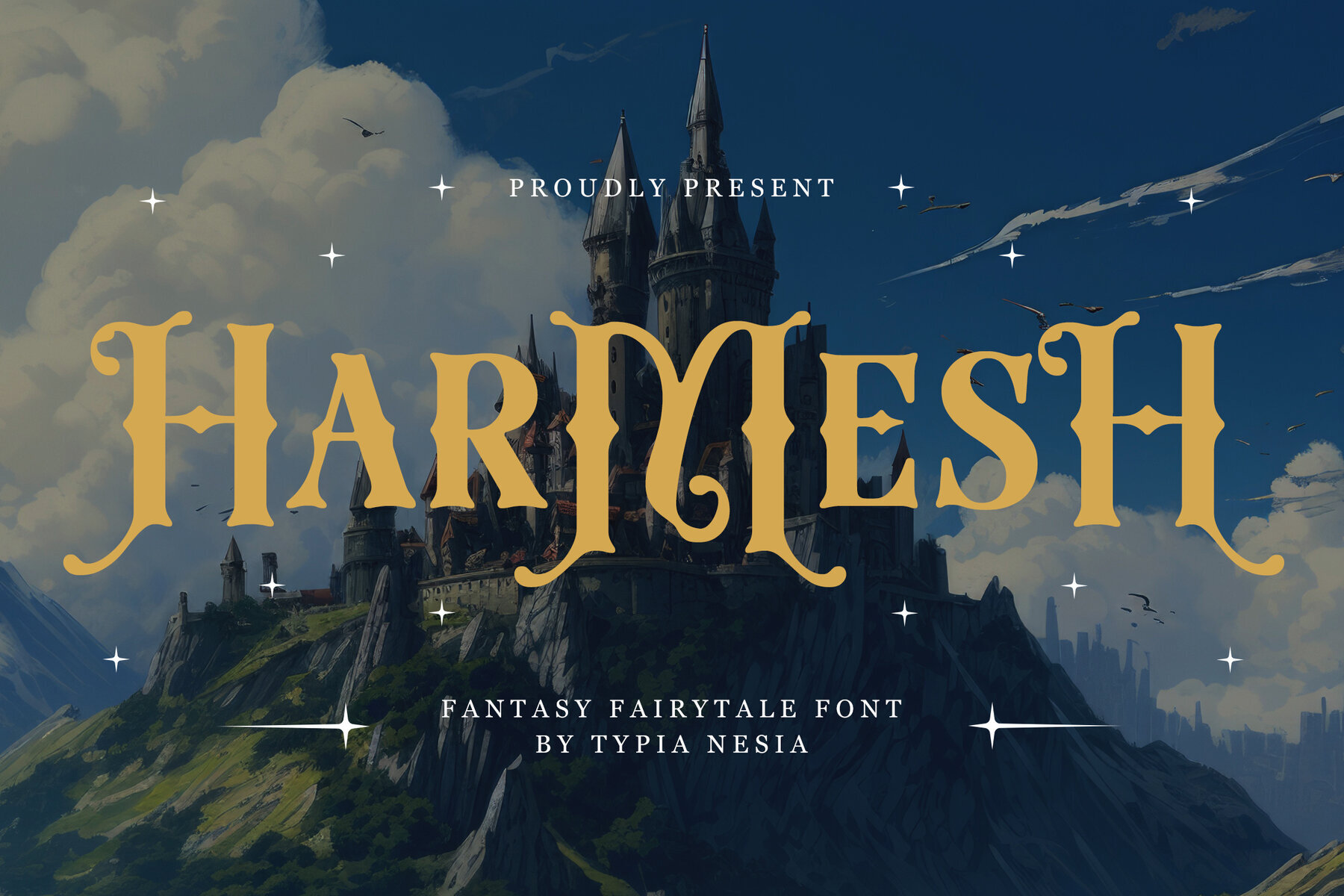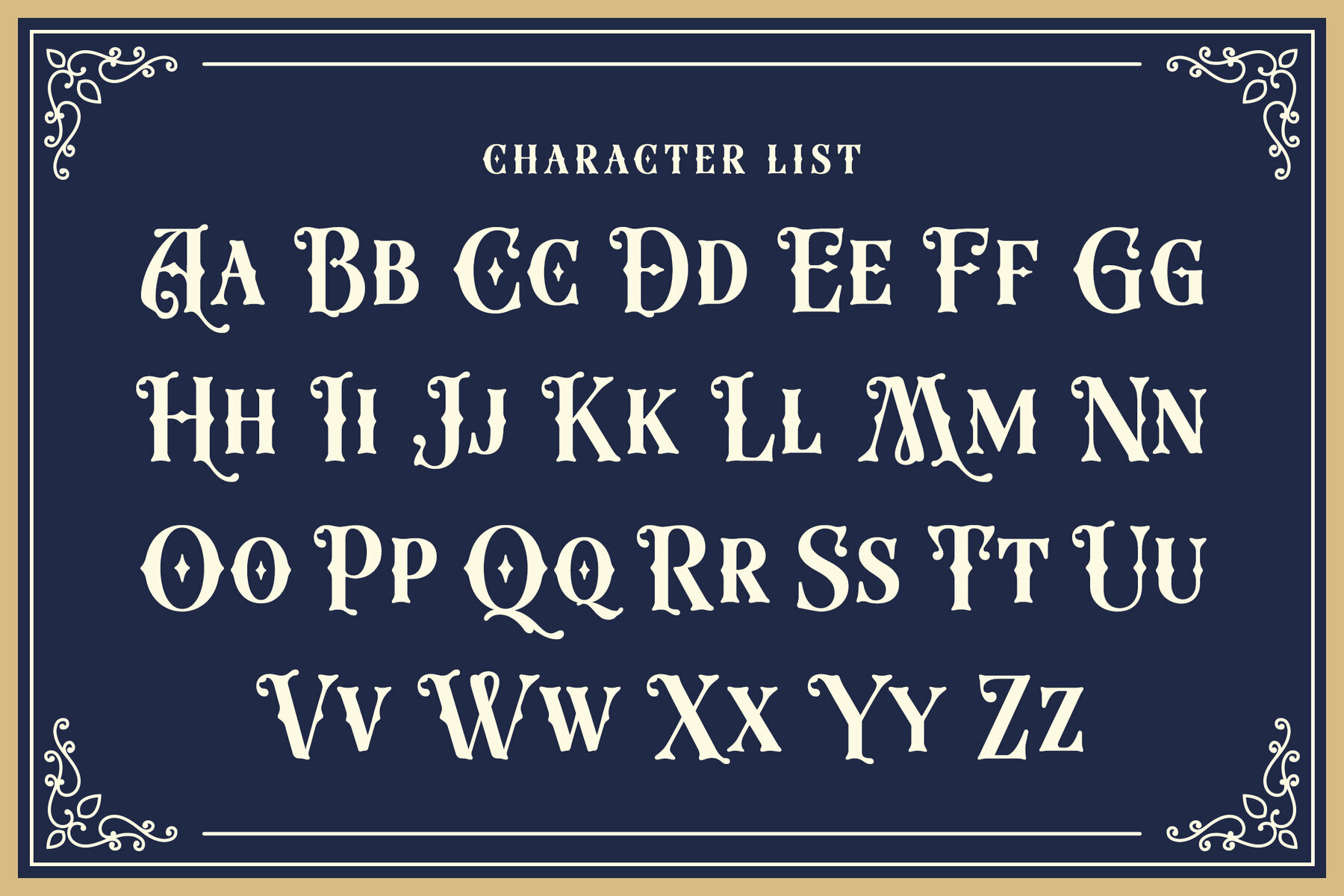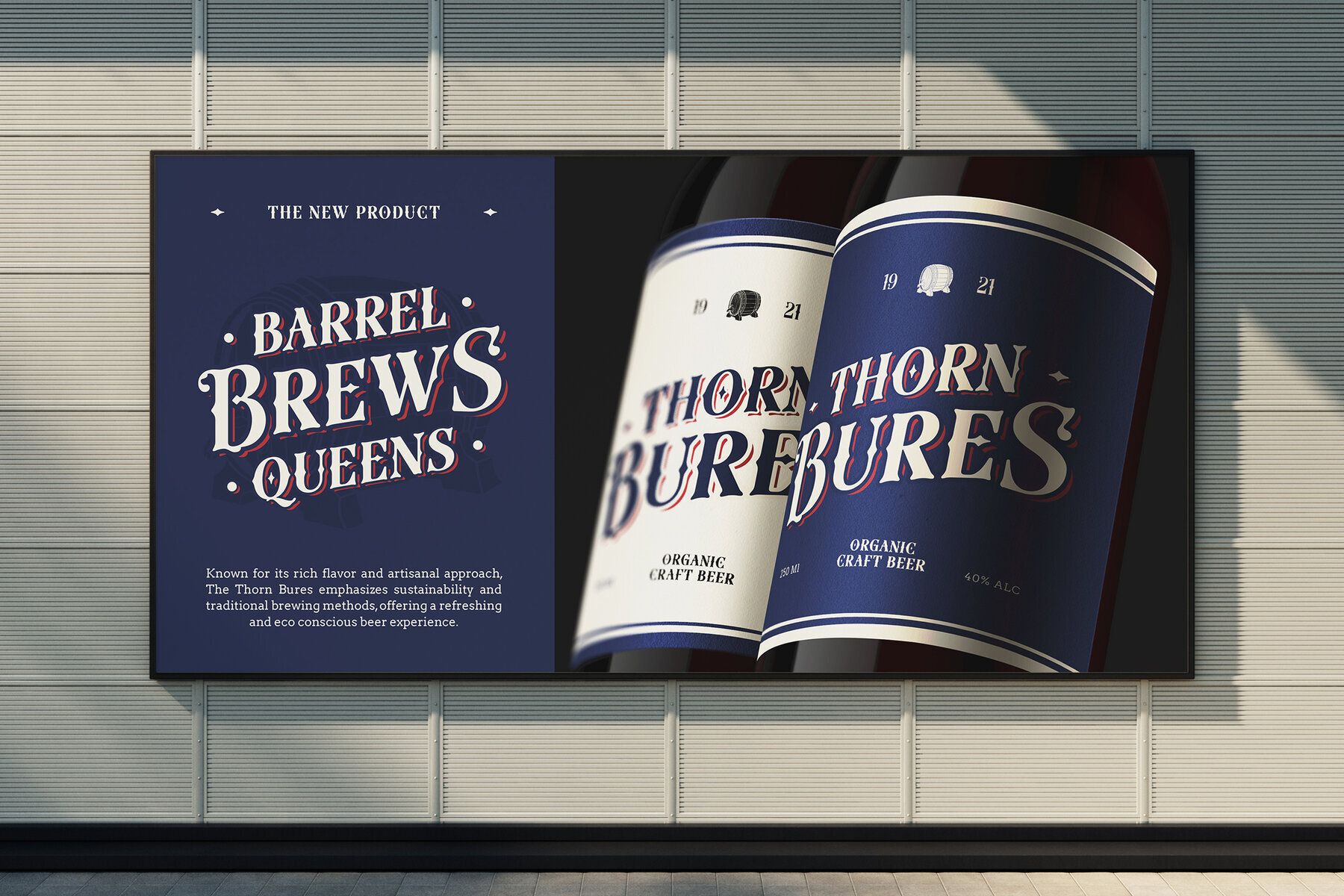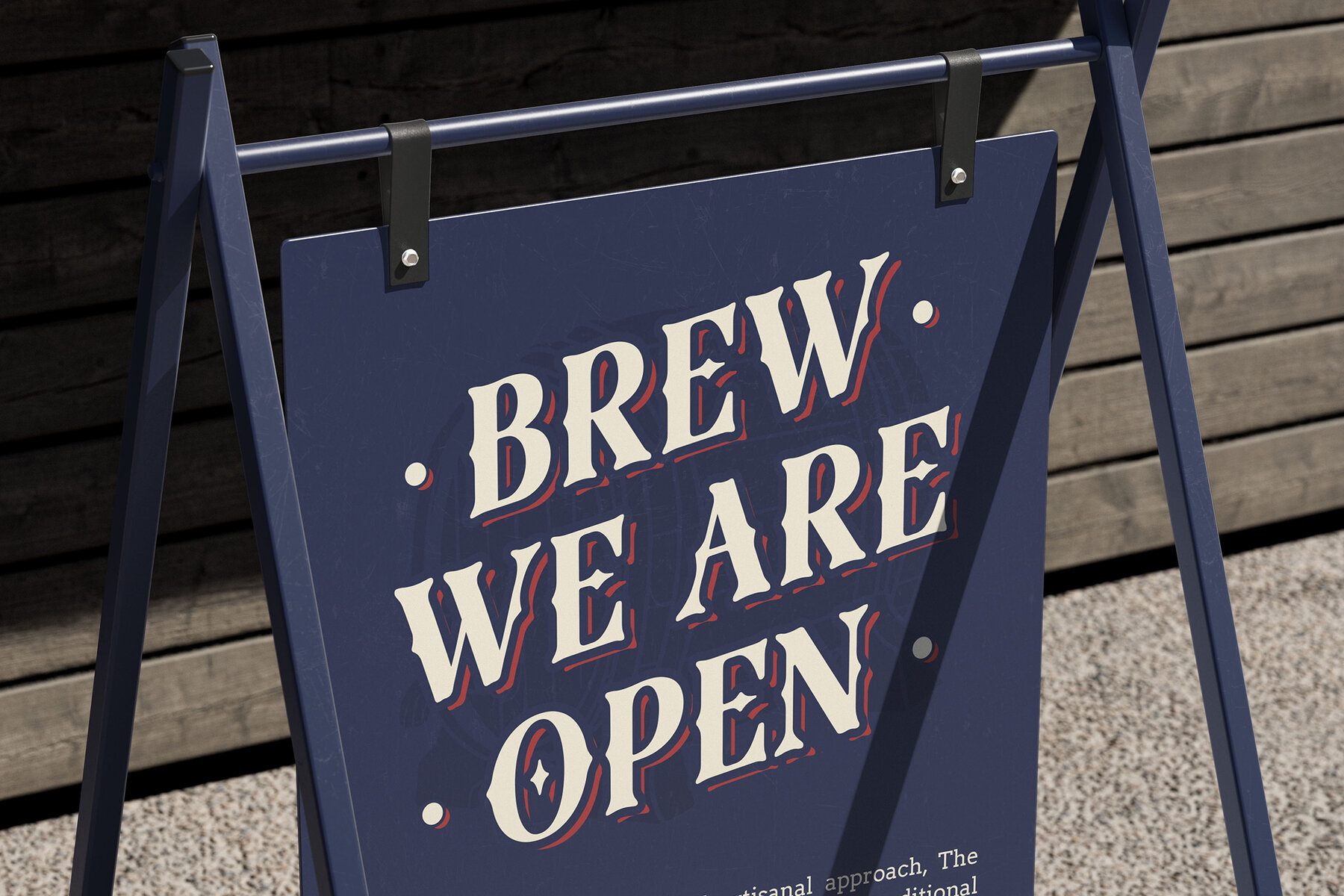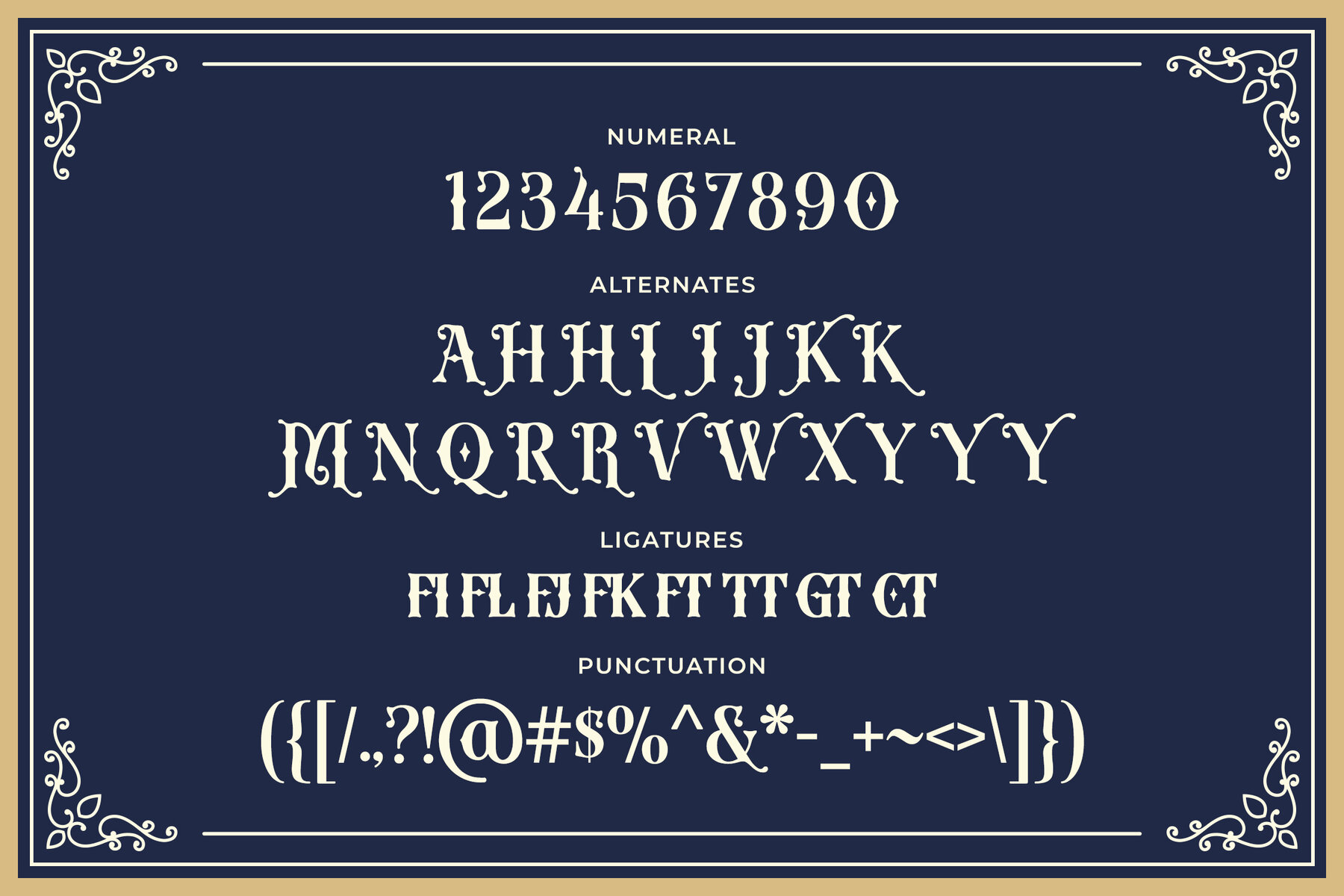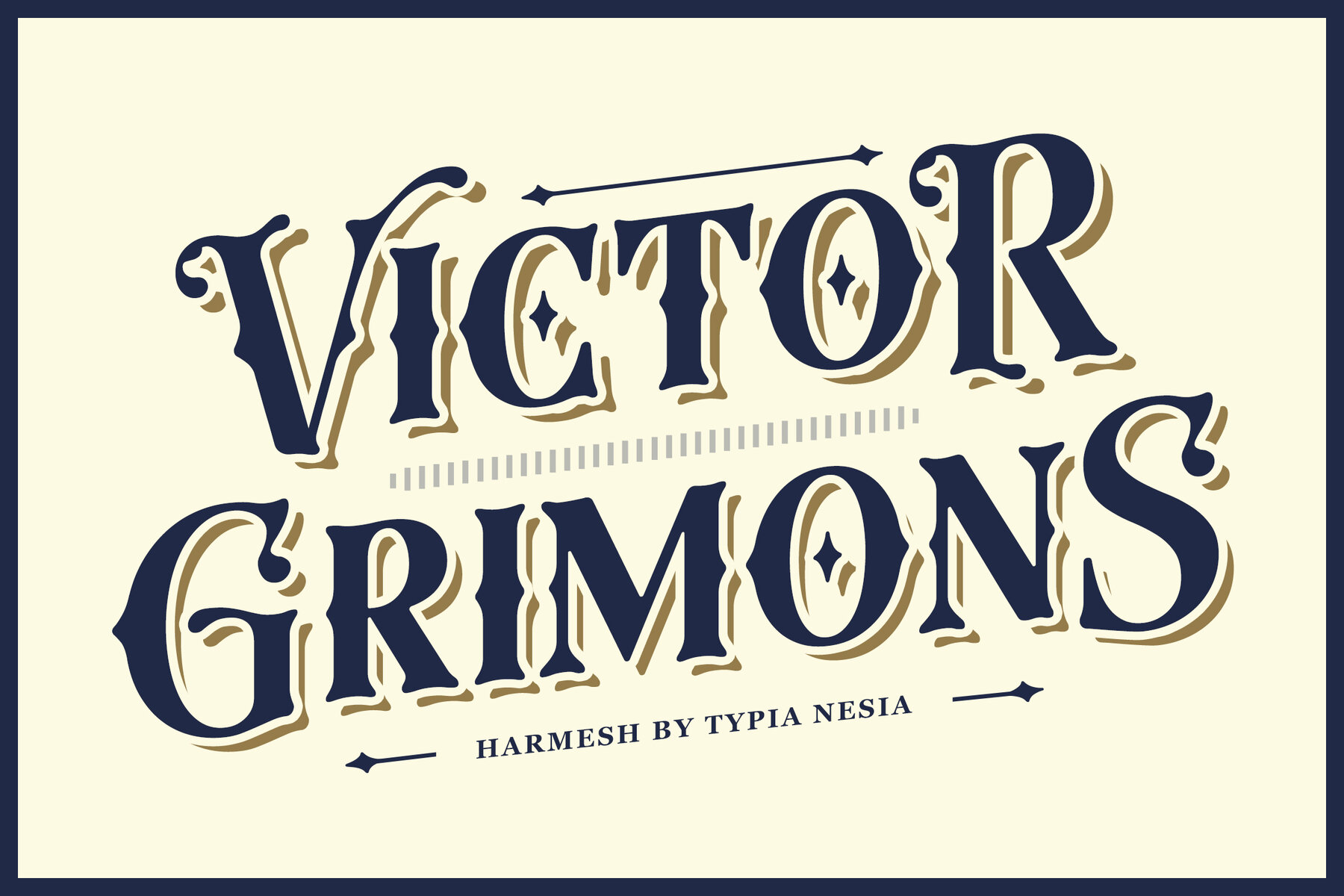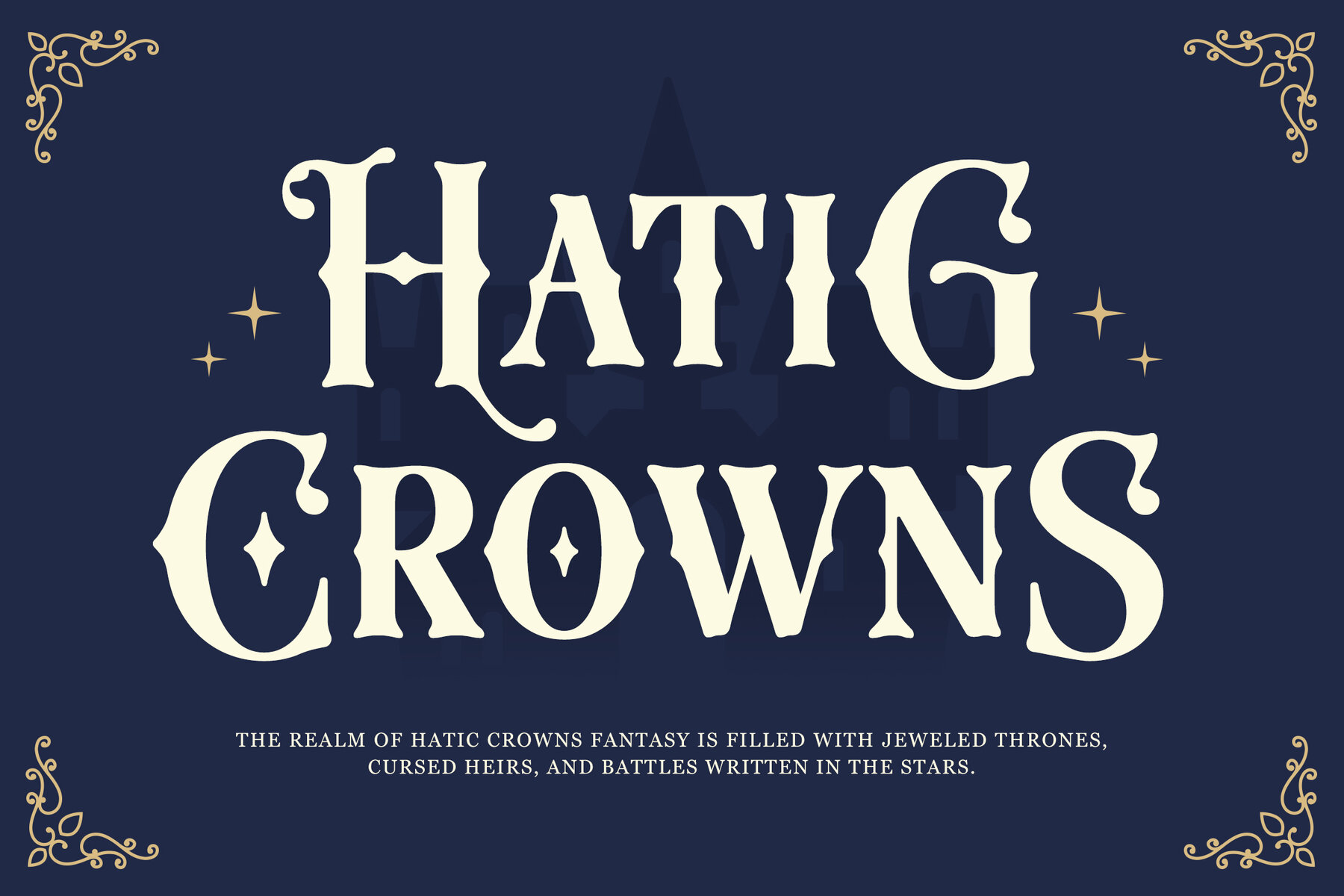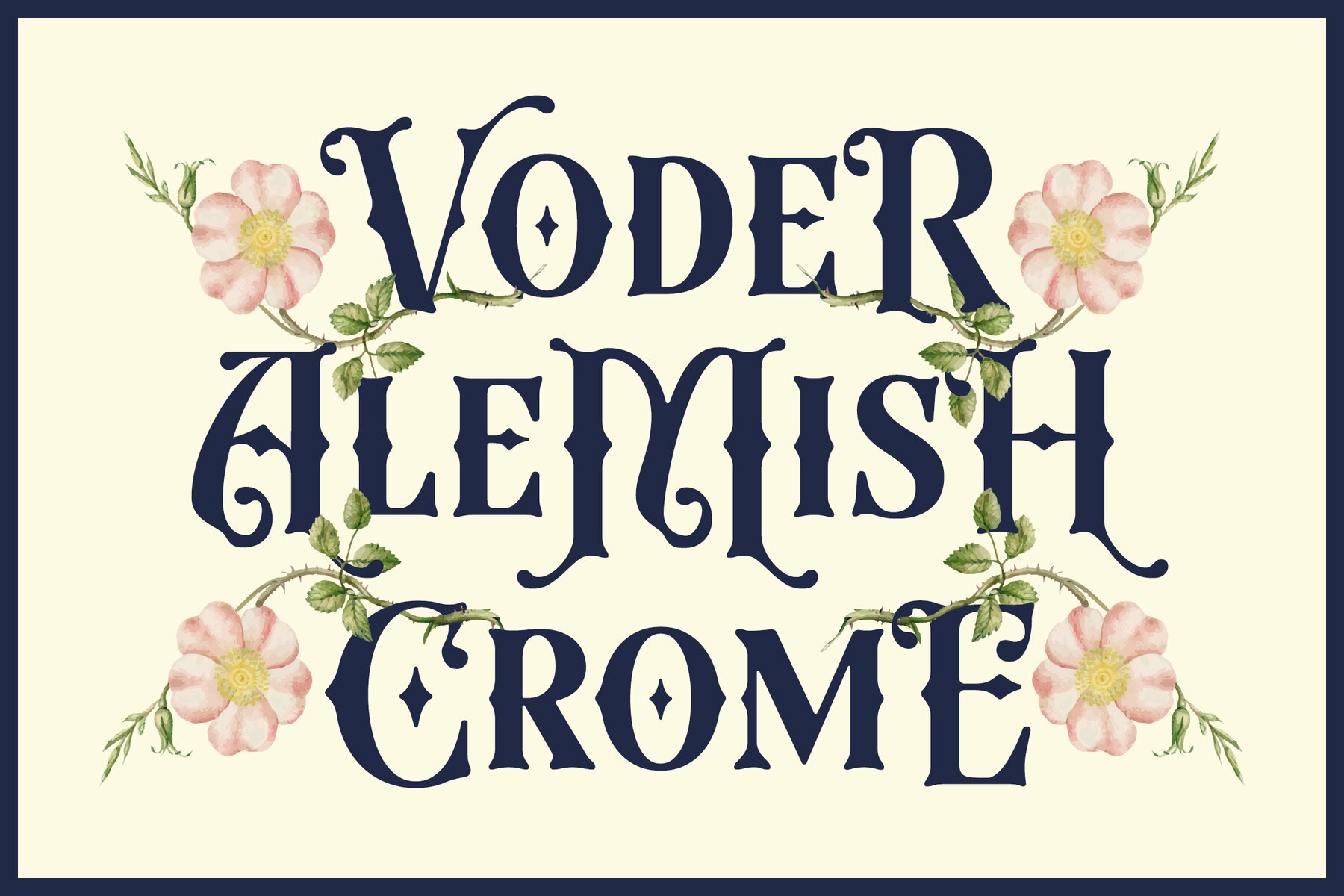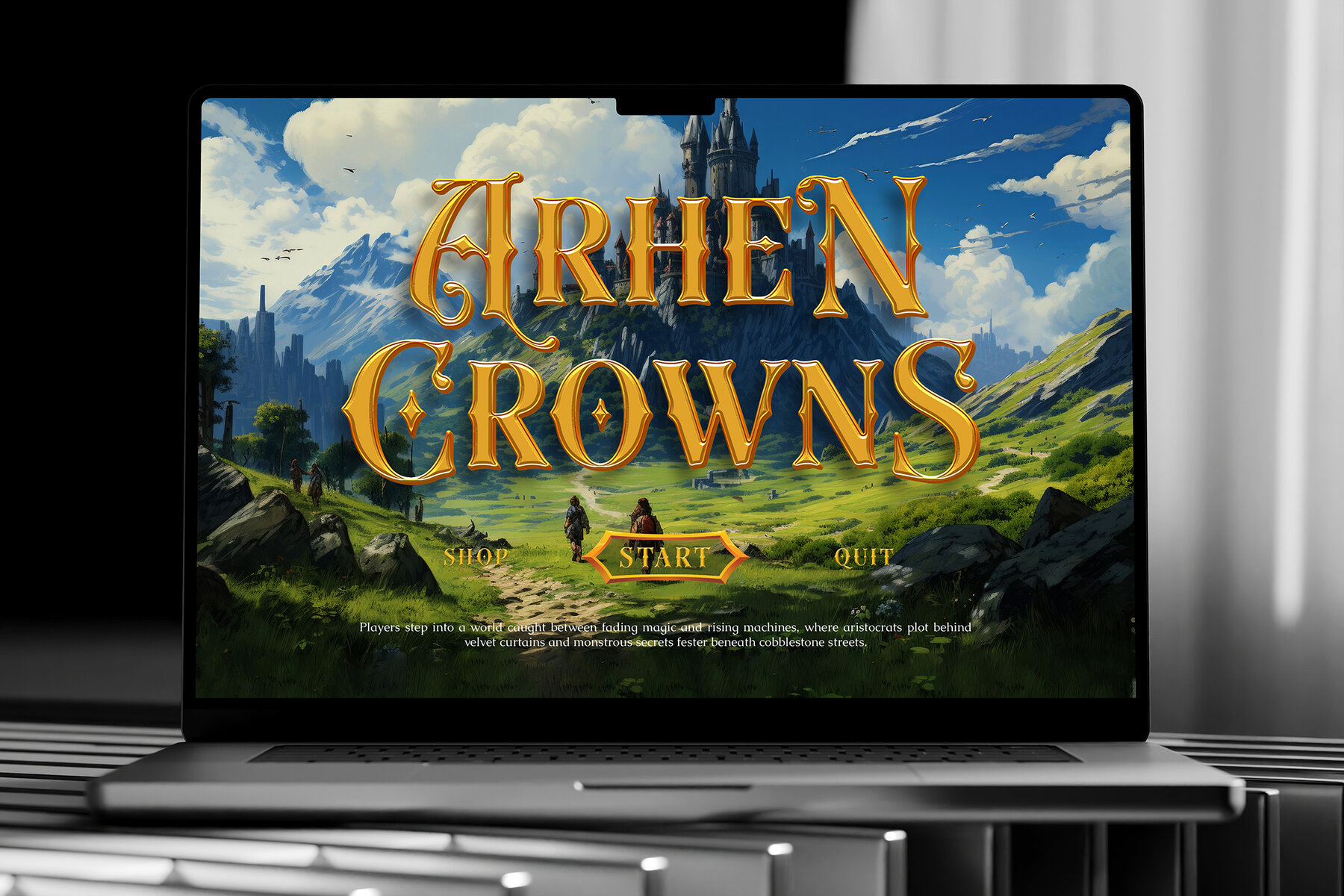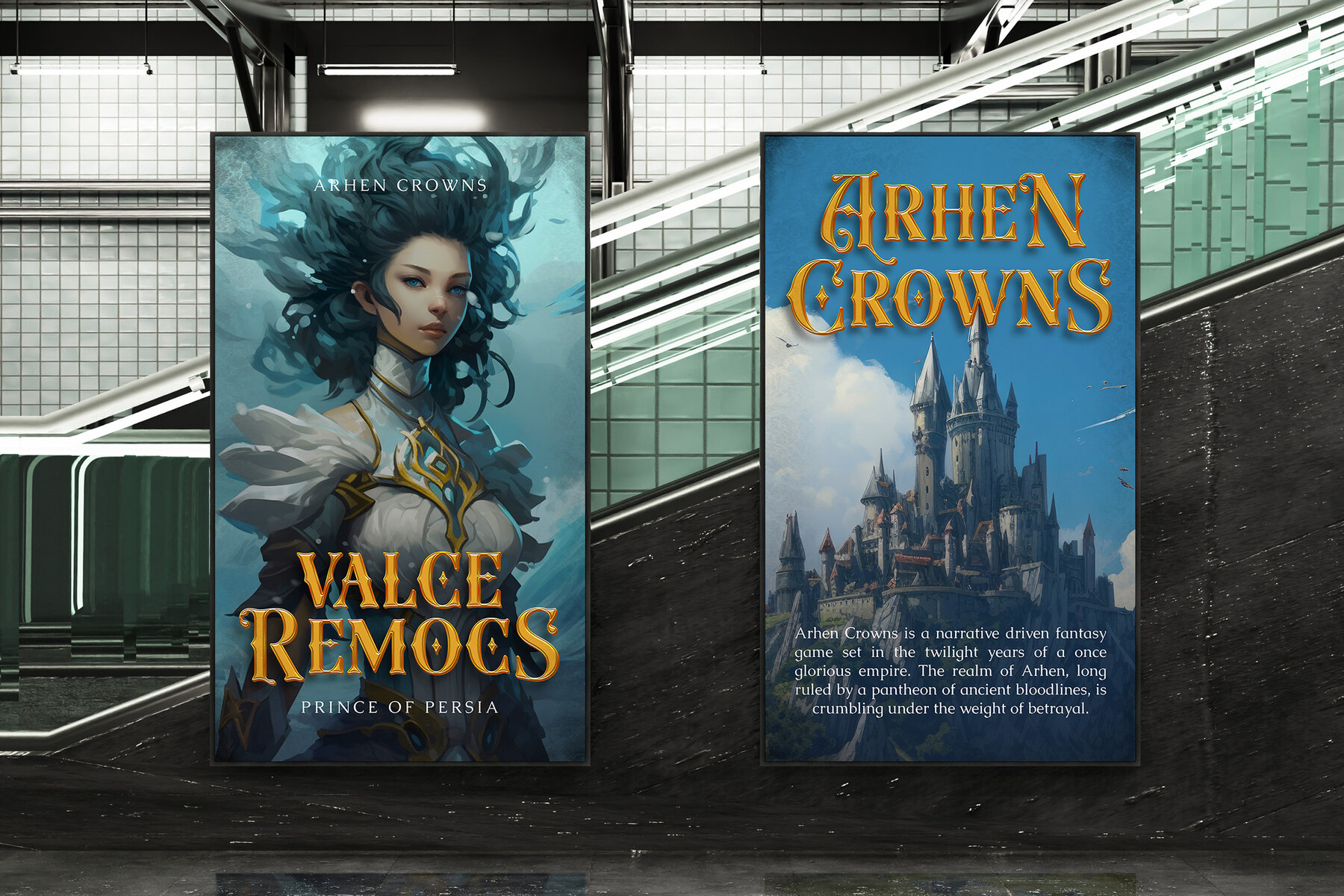
Harmesh Font
Harmesh Regular
Step into a world of enchantment with Harmesh, an exquisite fantasy fairytale typeface. With its ornate letterforms and decorative ligatures, Harmesh adds a touch of magic and elegance to your work. Perfect for crafting eye-catching game titles, mesmerizing book covers, and sophisticated craft branding, this font seamlessly blends vintage charm with modern design needs. Rooted in classic fairytale and medieval aesthetics, Harmesh offers designers the perfect tools to create typography that stands out with power and enchantment, making every project unforgettable.Harmesh: Magical Fantasy Typeface
Features of Harmesh